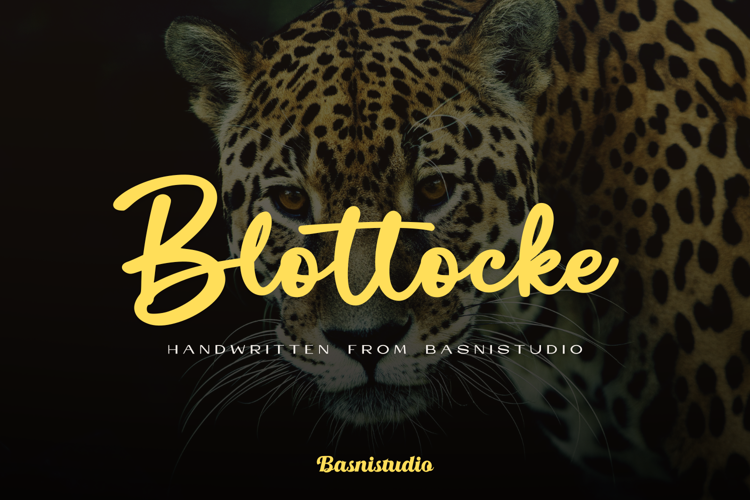
Blottocke Font
Blottocke a handwritten Font that adds a elegant, versatile touch to everything from branding and social media to invitations and packaging.